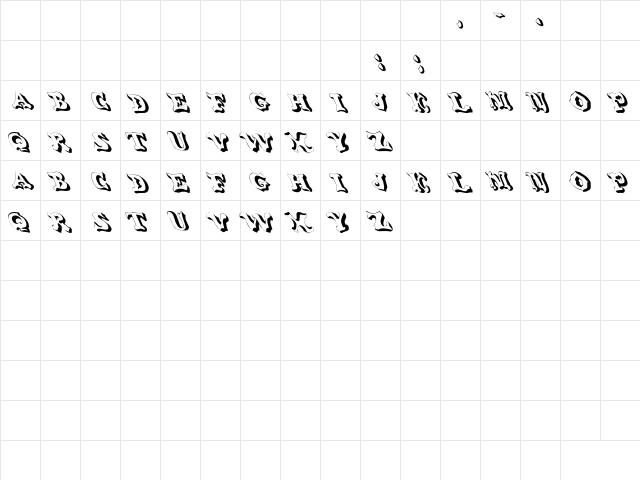
Ox Nard Lefty Regular Free Font
Ox Nard Lefty Regular
Complete Ox Nard Lefty Regular glyph index. Displaying only characters natively supported by Ox Nard Lefty Regular font.
Design Context for Ox Nard Lefty
Ox Nard Lefty is a composed and adaptable typeface that performs quietly and consistently across a wide range of design contexts.